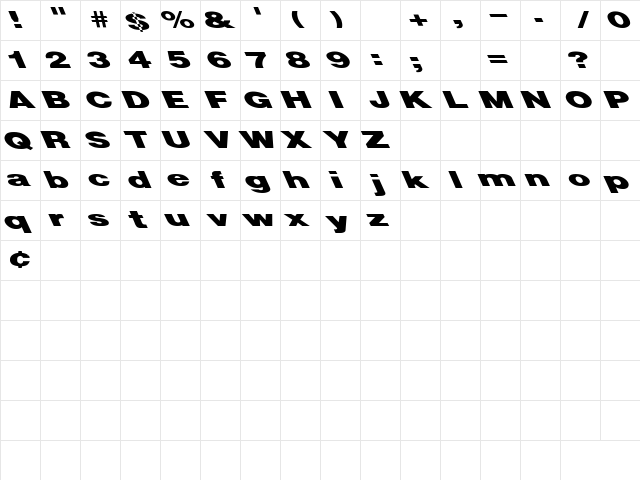
Ultra Black Ex Leftis Regular Font Preview
Ultra Black Ex Leftis Regular
Ultra Black Ex Leftis Regular Font Details
Design Context for Ultra Black Ex Leftis Typeface
Ultra Black Ex Leftis is a composed and adaptable typeface that performs quietly and consistently across a wide range of design contexts.
Pro Tip: Use Ultra Black Ex Leftis in both headline and body roles to test its range before committing to a single application.